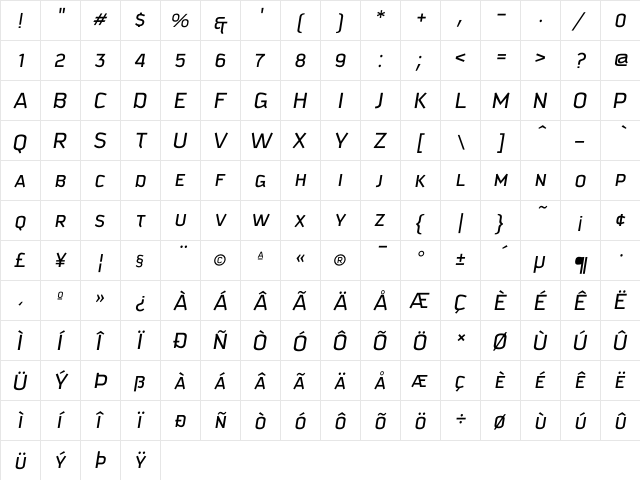
Kautiva Caps Italic
Design Context for Kautiva Caps Typeface
Kautiva Caps offers clean, dependable letterforms without strong stylistic allegiance, making it a practical choice for designers who need flexibility. Its italic angle brings a sense of urgency and motion to the letterforms.
Pro Tip: Try Kautiva Caps for annotation and caption copy alongside an upright companion — the contrast in angle creates a dynamic but ordered typographic system.